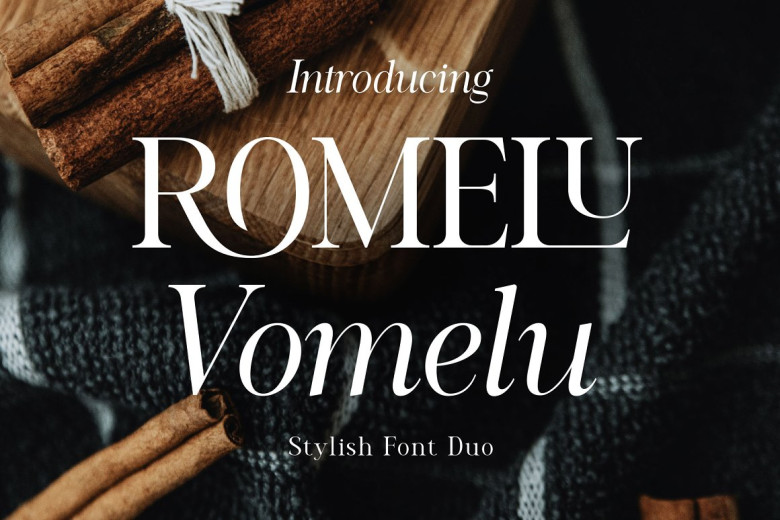
Romelu Vomelu Font
Introducing Romelu Vomelu is a modern font with a unique style concept. this font is inspired by classic serif fonts and italics are so beautiful when added to your design it can lift up your logo or display.
This font contains the following Regular and Italic which you can also use for the body text, presents a medium size with the font that has been created to keep it legible and readable so it is very suitable as a brand of your product.
Romelu Vomelu Serif Font